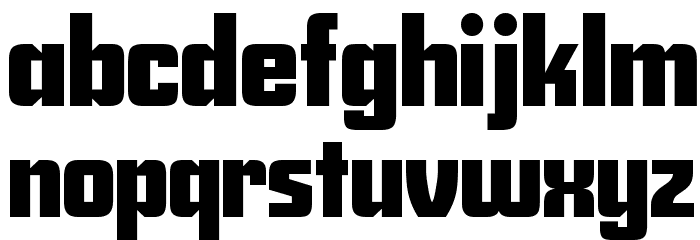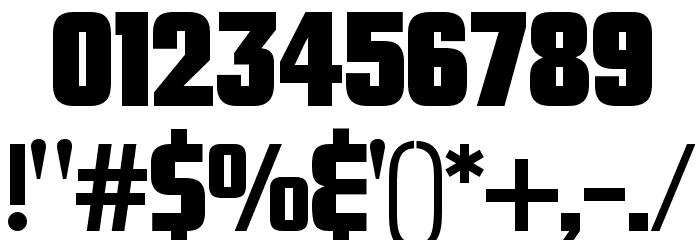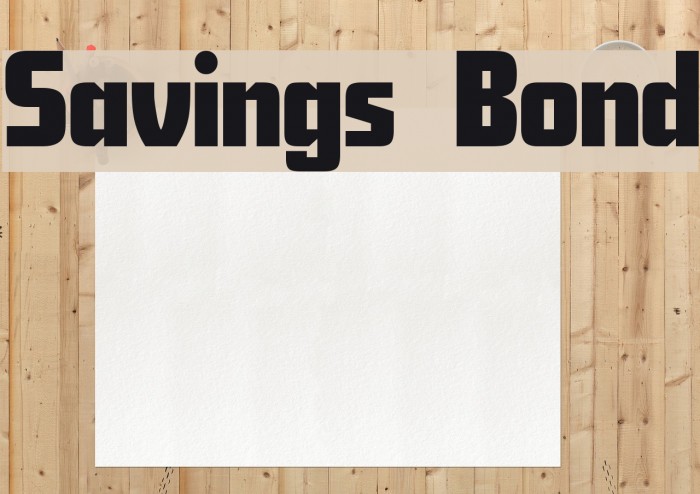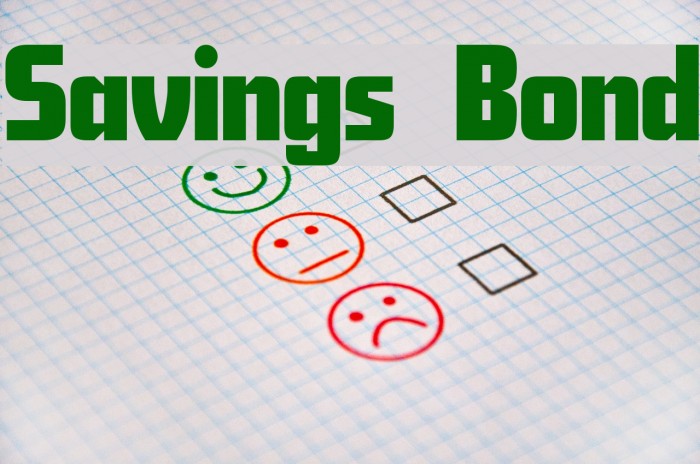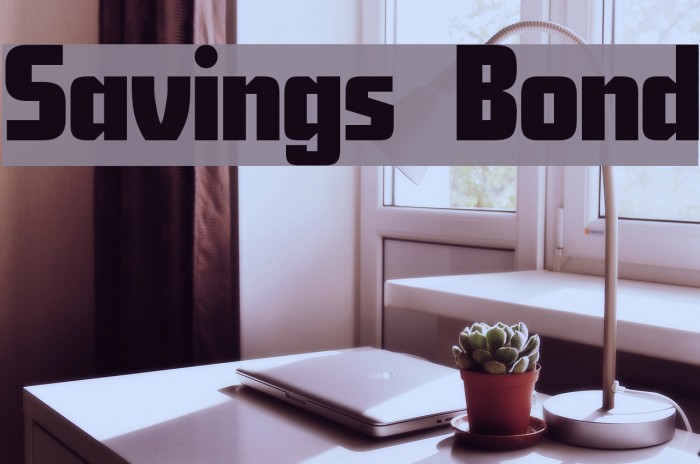
Savings Bond Font
This font features a bold and impactful design with strong geometric shapes and a modern aesthetic. The uppercase letters are blocky and robust, while the lowercase letters maintain a consistent weight, providing a cohesive look. The numerals are equally bold, ensuring readability and emphasis. Special characters are designed to match the overall boldness, making them stand out effectively. The font's thick strokes and uniform width give it a powerful presence, suitable for making statements in design projects.
A bold, geometric font with strong, uniform strokes and a modern aesthetic.
- Proposed Projects: Ideal for headlines, posters, branding, and any project requiring a strong visual impact.